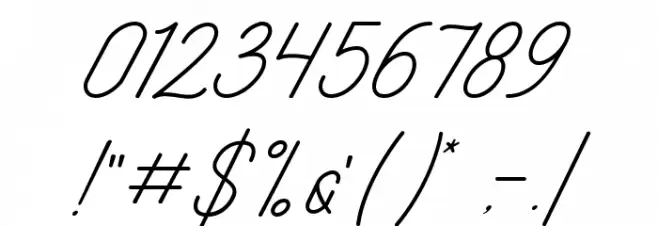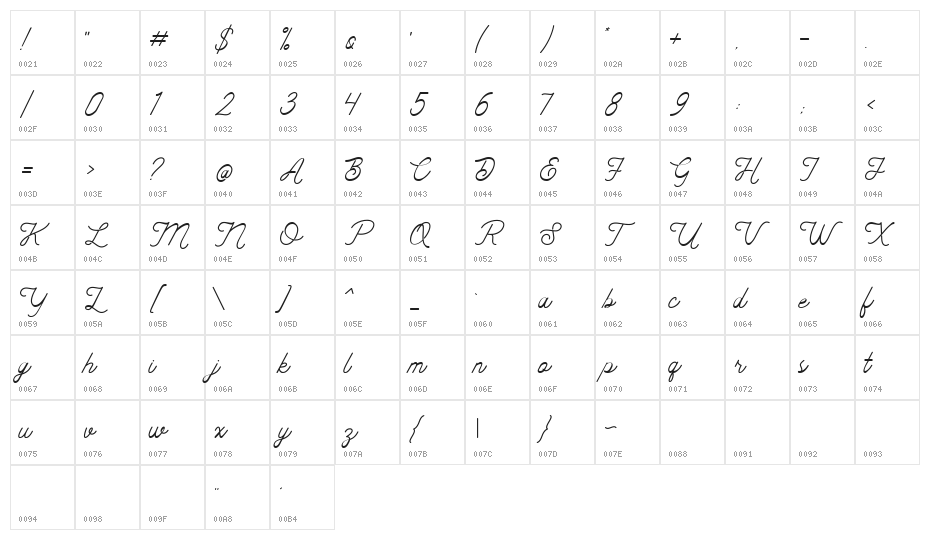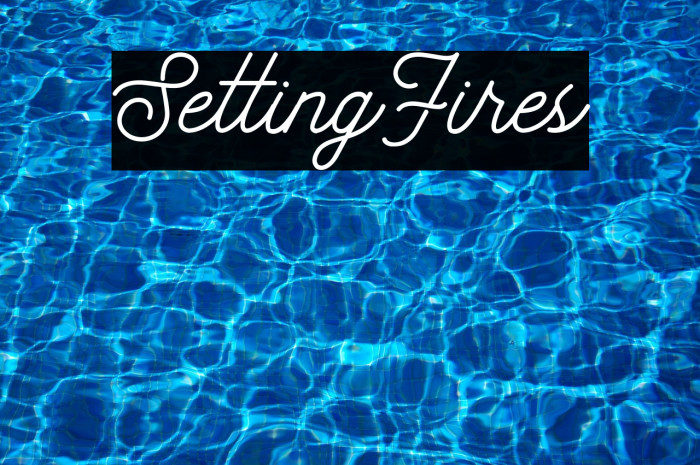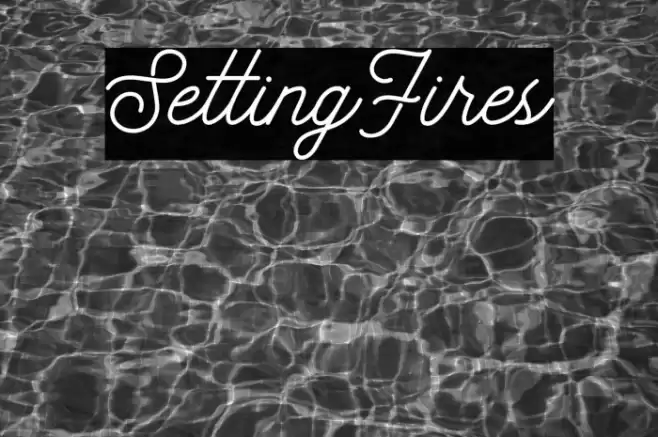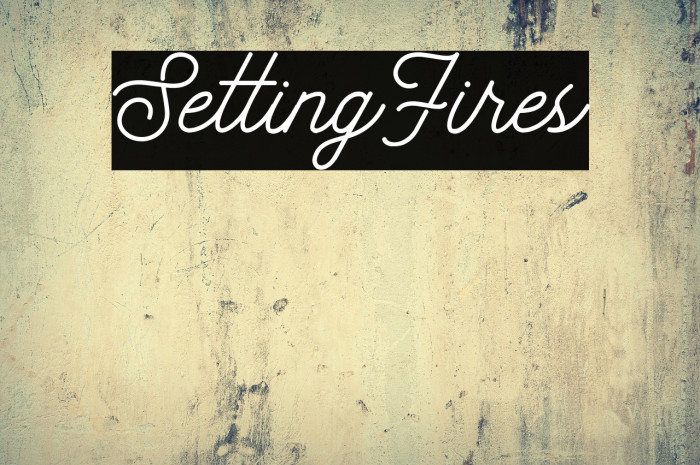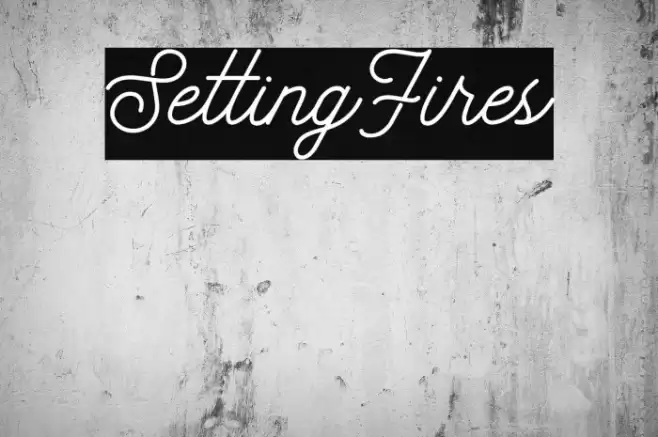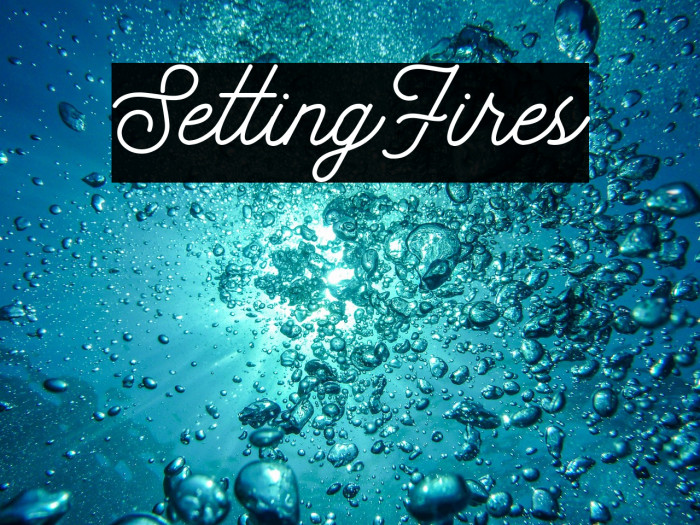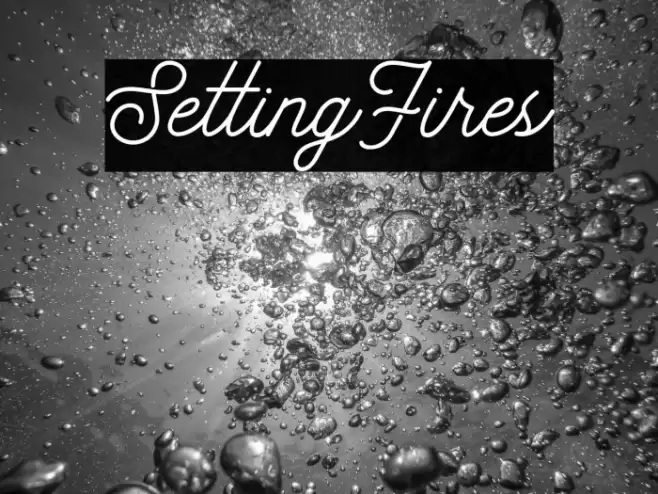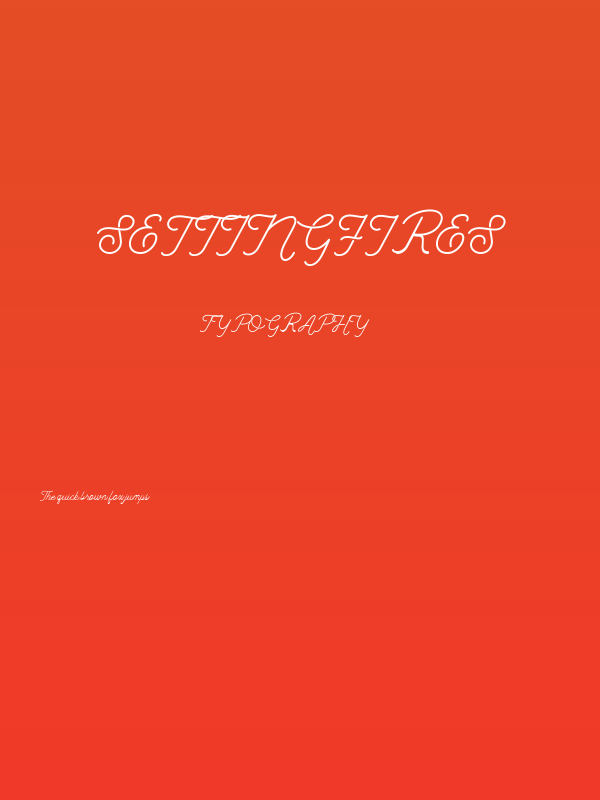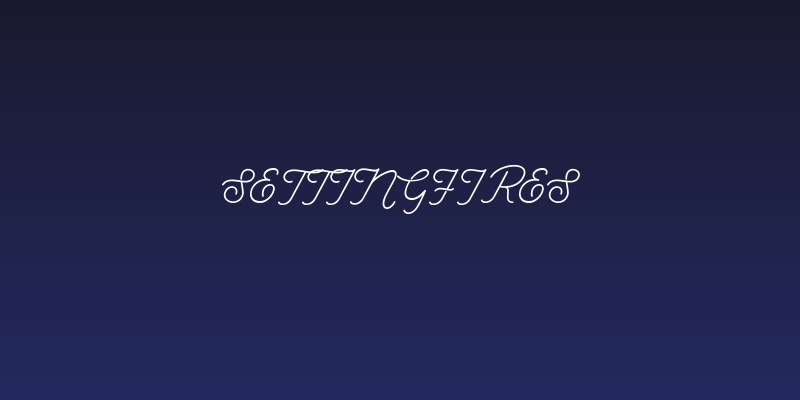
SettingFires Font
SettingFires Description
This elegant script font features fluid, cursive strokes that create a sense of movement and grace. The uppercase letters are slightly more ornate, with flourishes that enhance their decorative appeal, while the lowercase letters maintain a consistent flow that is both readable and stylish. The numerals and special characters are designed to complement the alphabet, maintaining the same cursive style. This font's overall appearance is sophisticated and artistic, making it ideal for projects that require a touch of elegance and creativity.
| Overall Style | Elegant, Artistic |
| Proposed Projects | Ideal for wedding invitations, greeting cards, elegant branding, and artistic projects. |